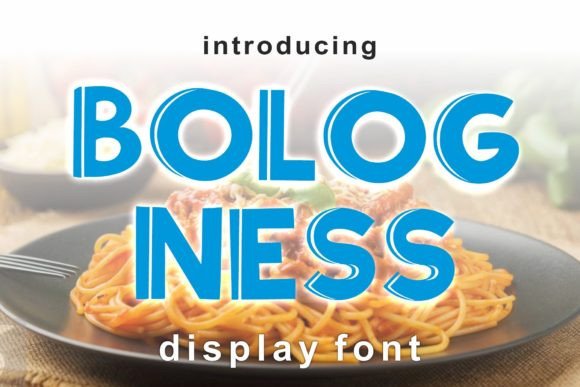
Discover the Groovy World of Bologness Font
Have you ever been in the middle of a design project, and suddenly, you just can’t seem to find the right font? I recall a particularly frustrating moment when I was working on a children’s book cover, and my client requested a font that was both playful and eye-catching. After hours of searching, I stumbled upon Bologness Font, and it completely transformed my design. In this article, we’ll dive into the wonderful world of Bologness, exploring its features, uses, and some helpful tips for getting the most out of this fantastic font.
An Honest Review of Bologness Font
What I Love About Bologness ✨
• ✅ Unique and quirky design that’s perfect for creative projects
• ✅ Extensive range of glyphs and stylistic alternates for added versatility
• ✅ Works beautifully across various design platforms
• ⚠️ Some characters may require manual kerning for optimal spacing
• ⚠️ Limited suitability for body text or lengthy paragraphs
The Backstory Behind Bologness Font
Bologness Font was designed with creativity and playfulness in mind. Its designer aimed to create a font that would inspire artists, designers, and crafters to push the boundaries of their imagination. With its unique blend of groovy and modern elements, Bologness is perfect for anyone looking to add a dash of personality to their projects.
Q: What type of projects is Bologness Font best suited for?
A: Bologness is perfect for creative projects like t-shirts, stickers, children’s books, social media posts, invitations, and more!
Q: Is Bologness Font suitable for body text or lengthy paragraphs?
A: While Bologness is a beautiful font, it’s not ideal for body text or lengthy paragraphs. Its unique design works best for headlines, titles, or short text snippets.